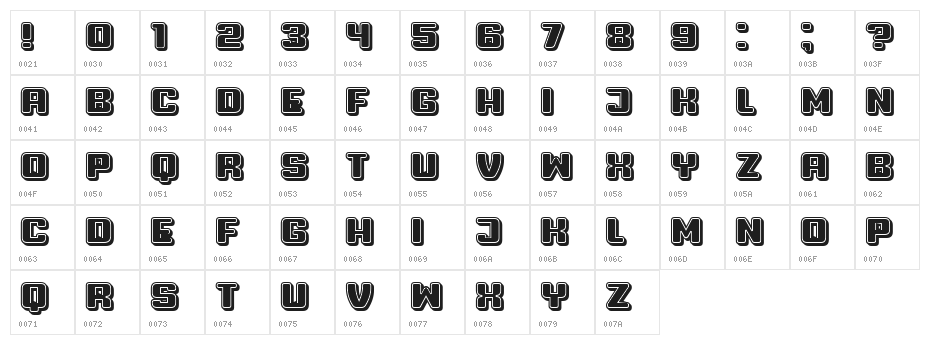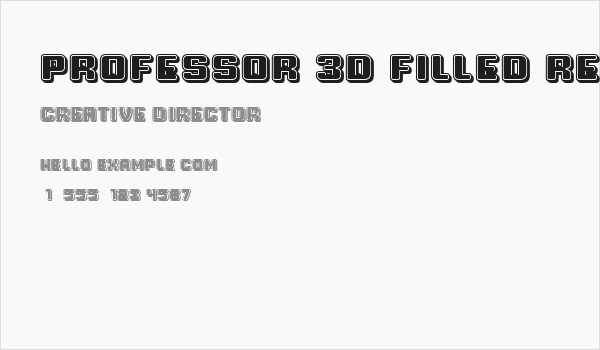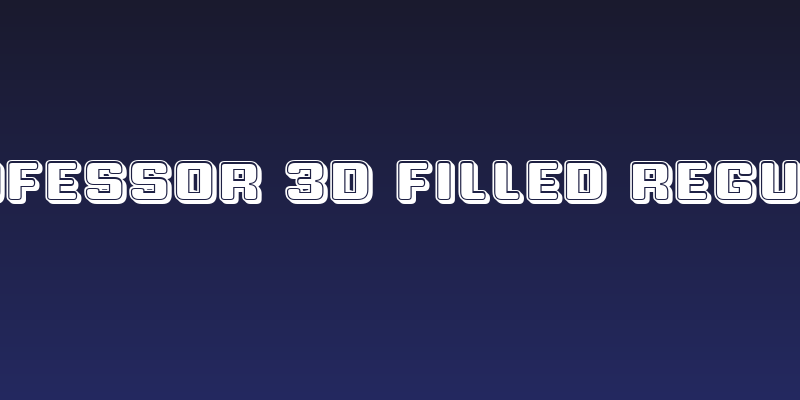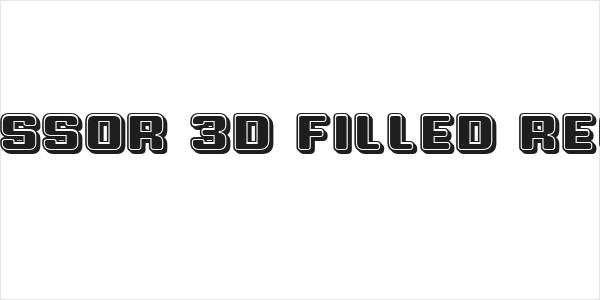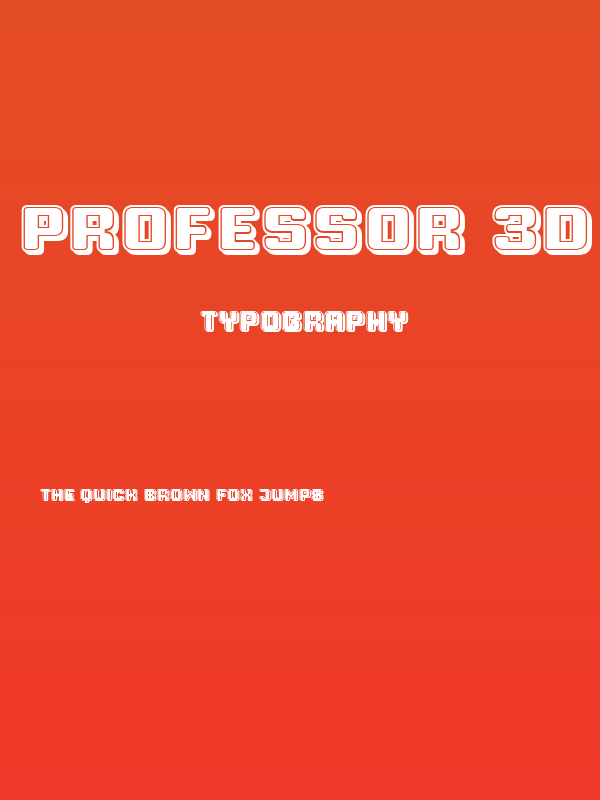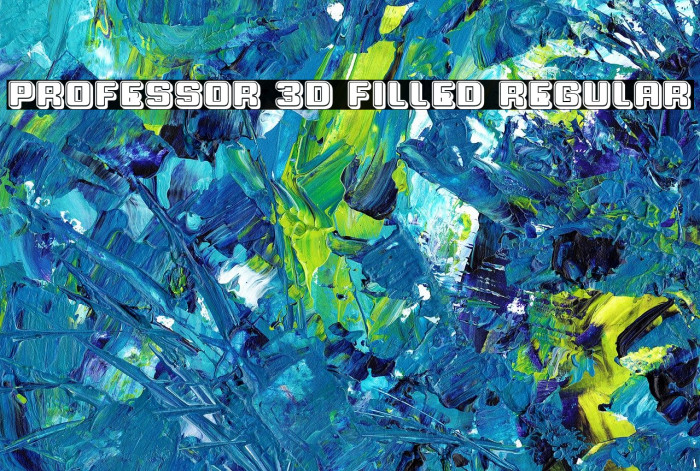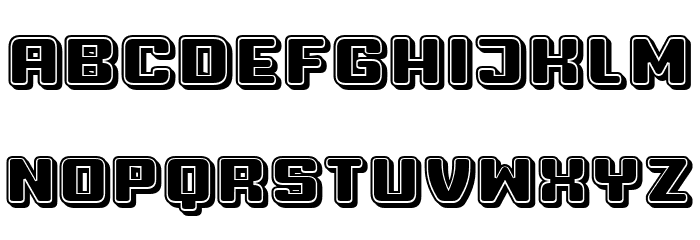
Professor 3D Filled Regular Font
Professor 3D Filled Regular Description
This font features a bold, three-dimensional appearance with a filled interior and a thick, black outline that gives it a striking and impactful look. The characters are uniformly structured, with a geometric style that emphasizes straight lines and sharp angles. The uppercase letters are consistent in height and width, creating a cohesive and balanced visual effect. The numbers follow the same design principles, ensuring uniformity across all characters. This font's unique 3D effect makes it stand out, making it ideal for attention-grabbing designs.
| Proposed Projects | Ideal for posters, headlines, logos, and any design needing a bold, eye-catching typeface. |